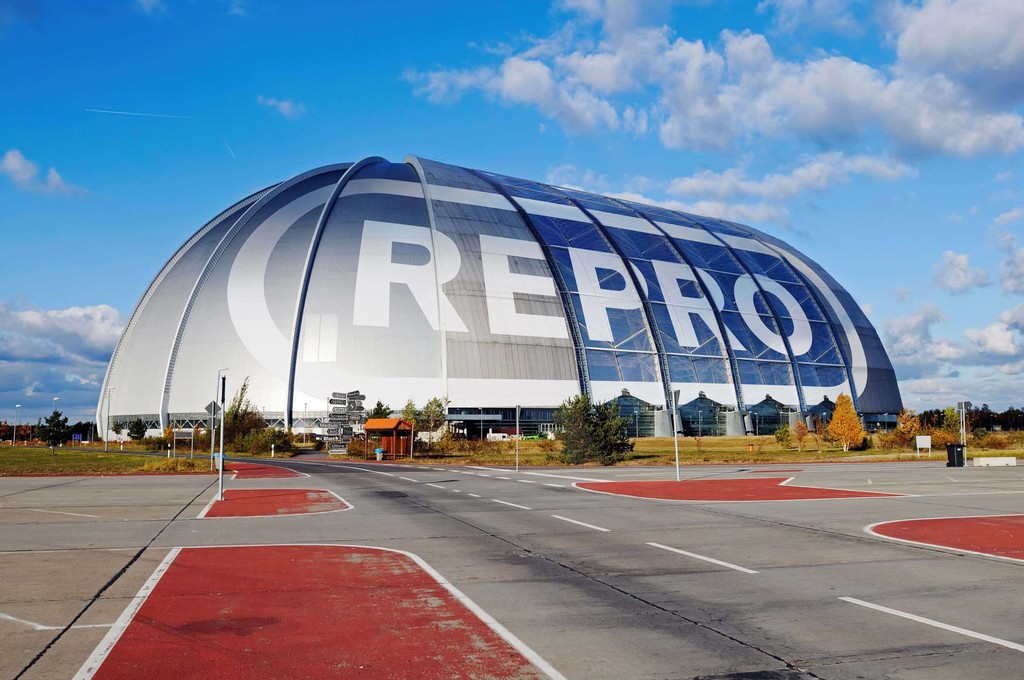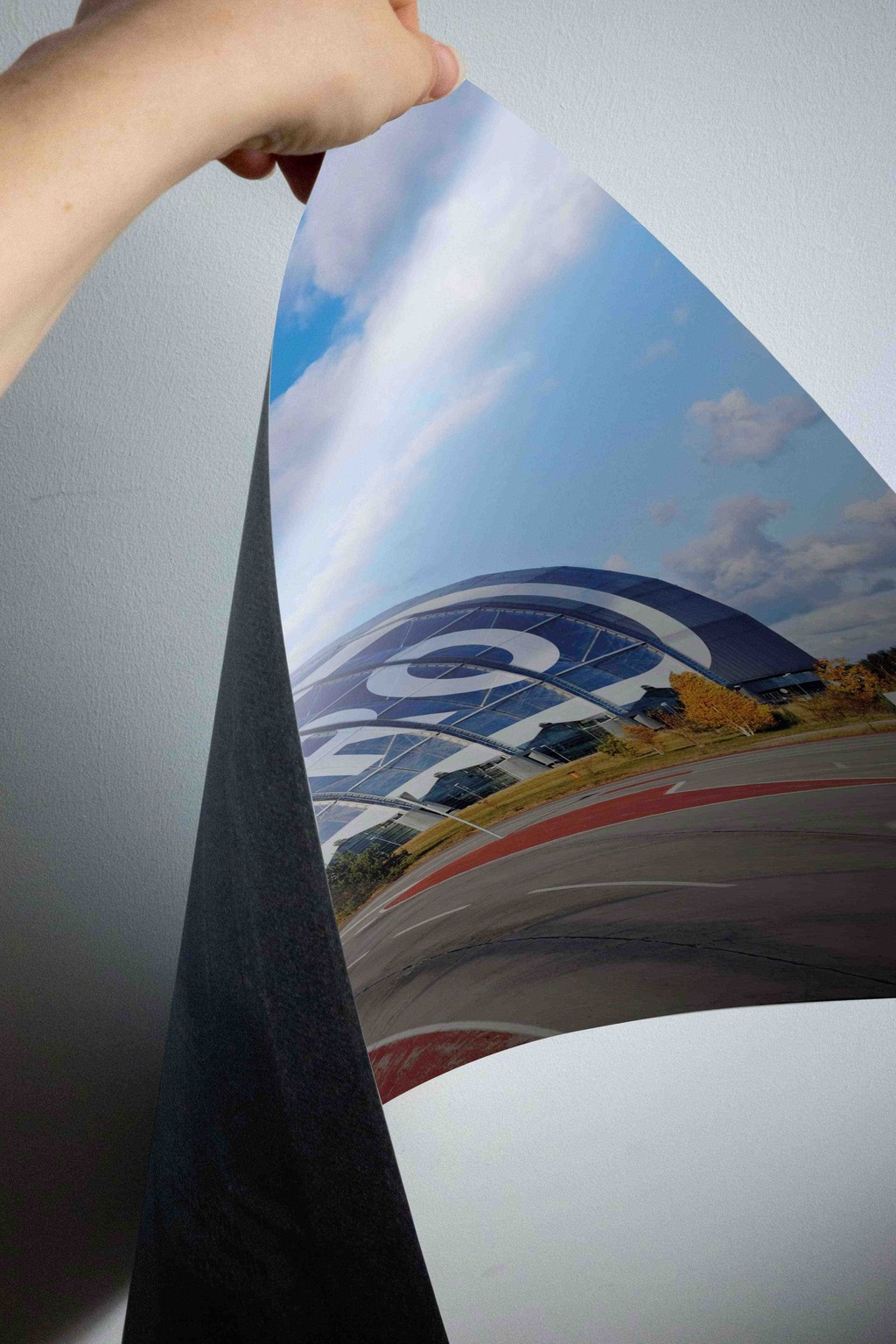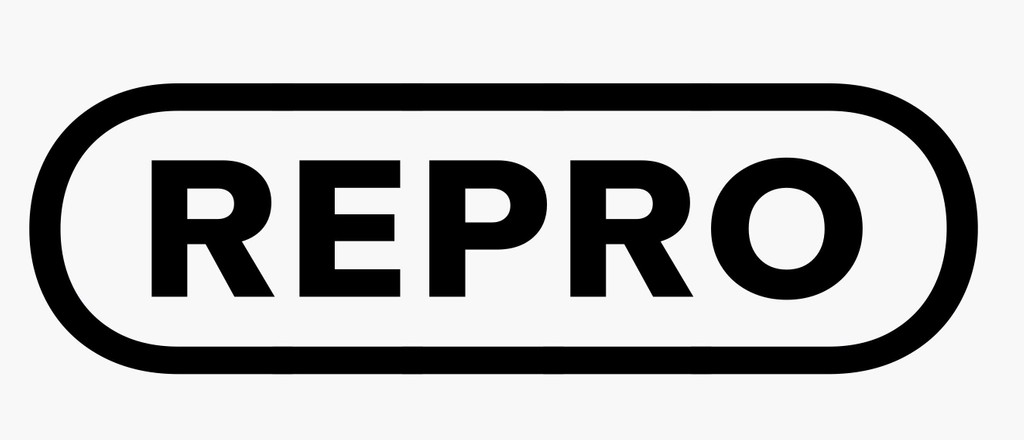
Repro Poster
Poster for Repro, a typeface that merges clean design with complex font engineering. A1 (59.5 x 84.1 cm), CMYK offset printed by Druckhaus Sportflieger in Berlin.
Typeface: Erkin Karamemet for Dinamo
Design: Sascia Reibel and Mathias Lempart (Shortnotice Studio)